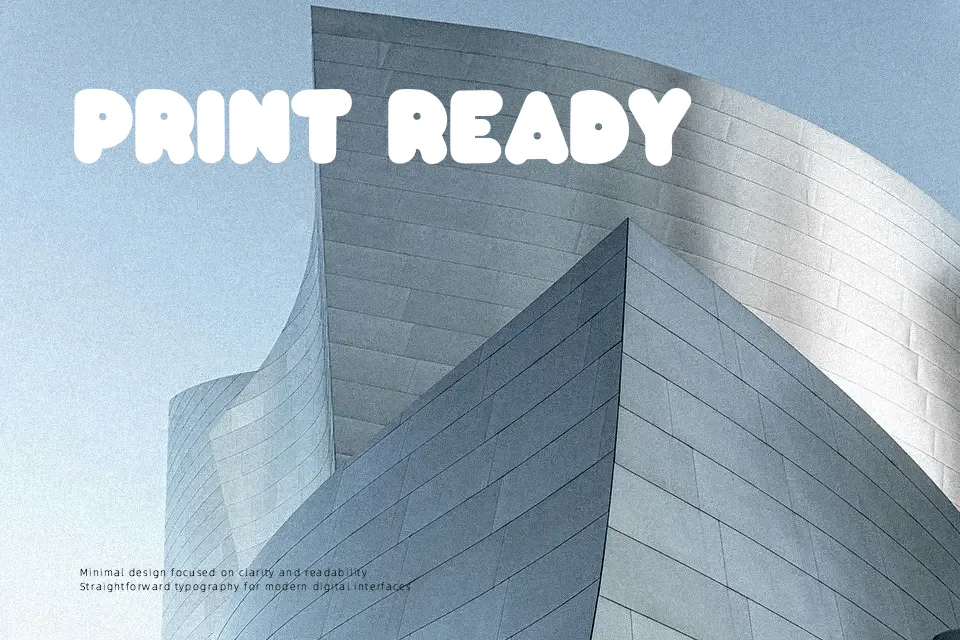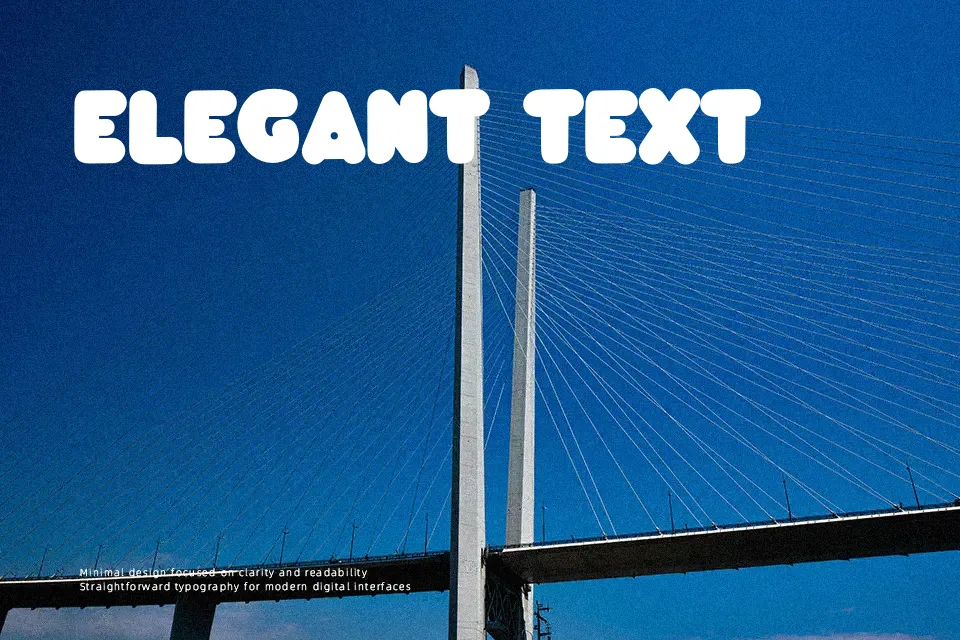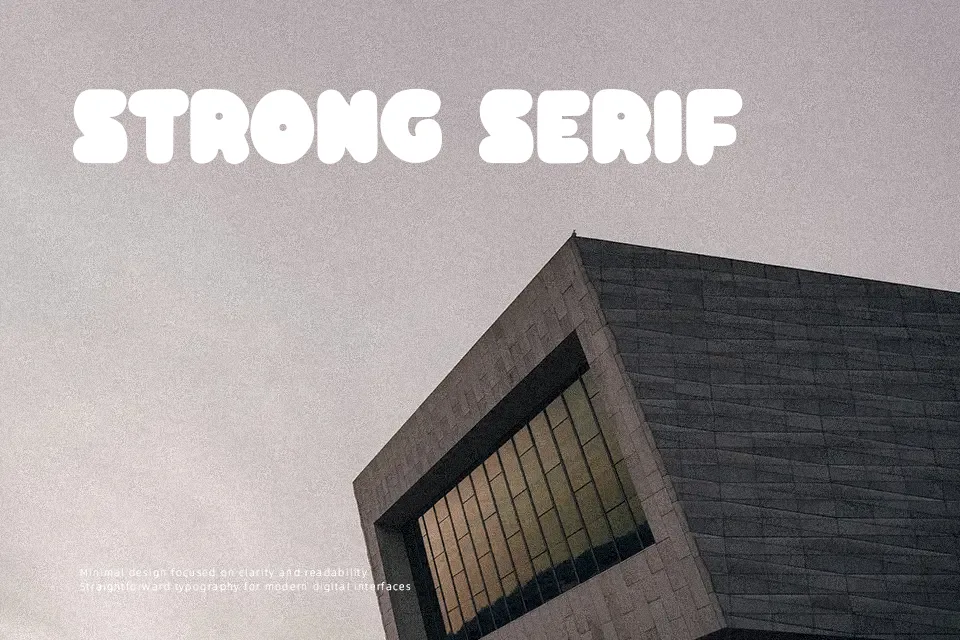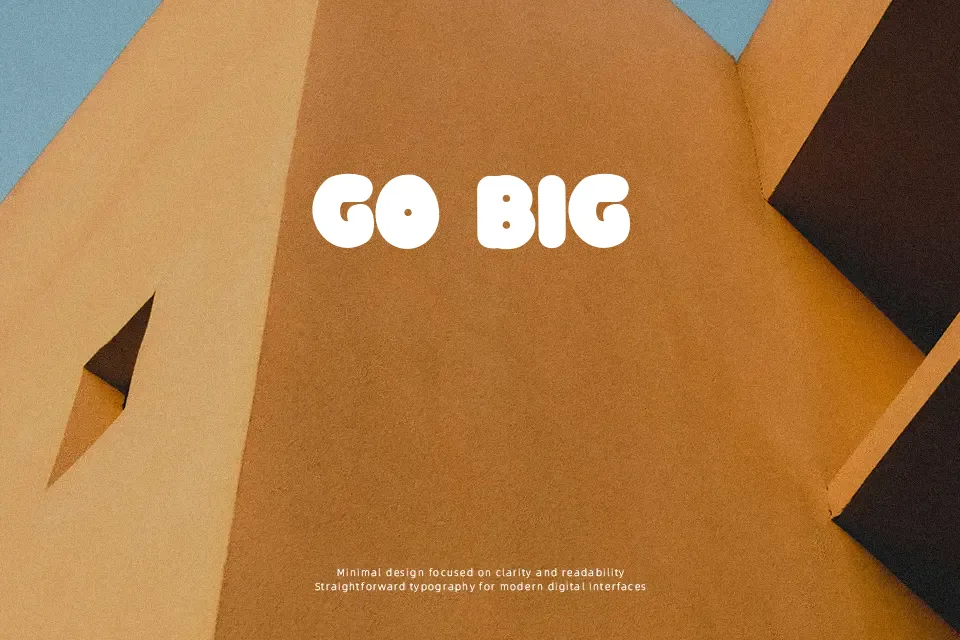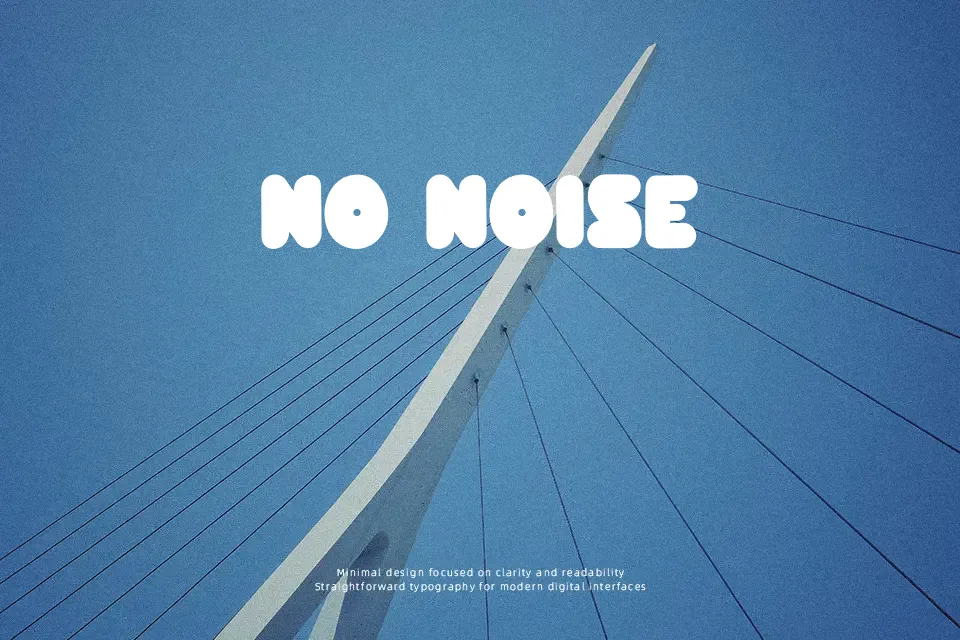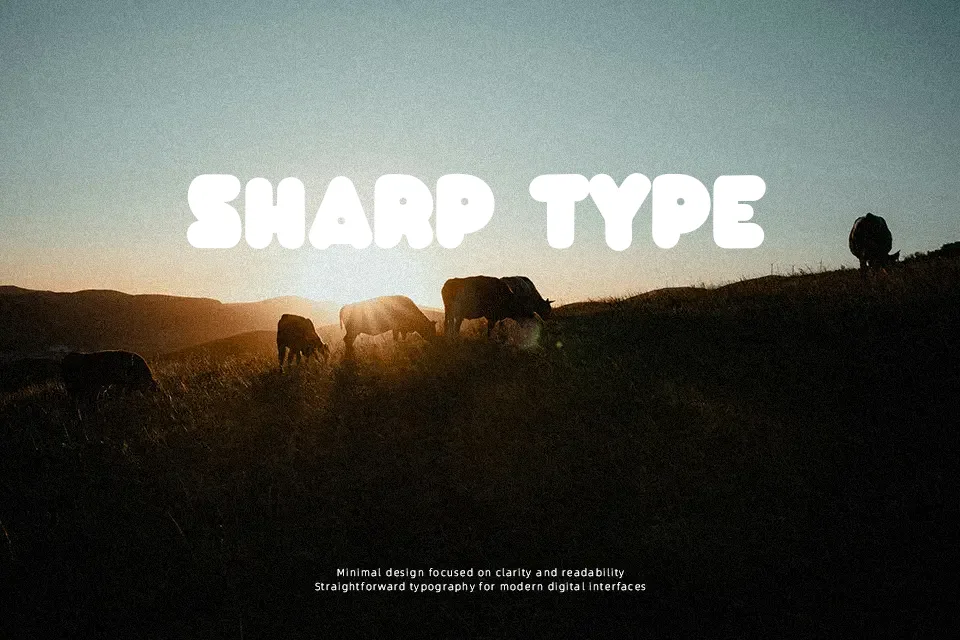
Tropical Love Font
Designed by Tigadestd
Tropical Love Font features rounded sans-serif letterforms defined by heavy, uniform strokes and smooth circular corners. The typeface exhibits balanced spacing alongside wide horizontal proportions, establishing a sturdy rhythm across headline layouts. In large titling applications, the design maintains clear legibility and creates an engaging focal point for merchandise graphics, poster headings, and cartoon branding. However, dense character weights reduce optical clarity at smaller point sizes, making the letterforms less effective for continuous reading environments. For short display phrases requiring a cheerful tone, the font offers reliable structural consistency, though extended body paragraphs quickly suffer from cluttered counters and diminished comfort.
Best For: children’s book titles, cartoon animation graphics, playful snack packaging, casual t-shirt prints
Not Ideal For: dense editorial paragraphs, corporate legal documents, formal business stationery, mobile app interfaces
Perfect for branding, headline, and kids, with a cute and cartoon style.